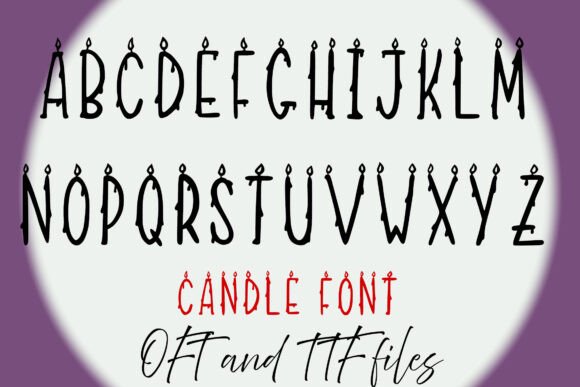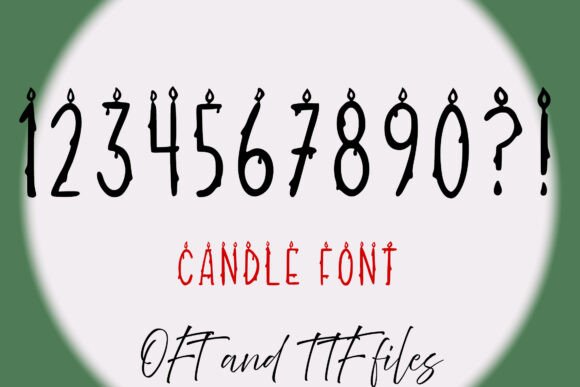
The Glow of Inspiration: How Candle Font Can Elevate Your Designs
I’ll never forget the time I was working on a Halloween-themed project for a client, and I just couldn’t find the right font to capture the spooky yet charming vibe I was going for. The design was supposed to be eerie, yet inviting—a delicate balance that’s hard to achieve with the wrong typography. That’s when I stumbled upon Candle Font, a unique and spooky decorative typeface that instantly brought my design to life. Each letter, topped with a tiny flame, seemed to dance across the page, casting a warm yet mysterious glow over the entire piece.
A First Impression: What I Love About Candle Font
Candle Font has quickly become one of my go-to typefaces for projects that require a touch of magic and mystery. Here are a few things I love about it:
- ✨ Unique Design: The tiny flame on top of each letter is not just a gimmick—it adds a level of whimsy and charm that’s hard to find in other fonts.
- âś… Versatility: Whether you’re working on a Halloween design, a gothic invitation, a horror poster, or a magical branding project, Candle Font fits right in.
- 🔥 Eerie yet Inviting: The font strikes the perfect balance between spooky and charming, making it ideal for projects that need to capture a sense of mystery or intrigue.
Honest Review: A Few Quirks to Consider
While Candle Font is incredibly versatile and charming, there are a few quirks to keep in mind:
- 🤔 Legibility at Small Sizes: Like many decorative fonts, Candle Font can become a bit tricky to read at smaller sizes. It’s best used for headlines or larger text elements.
- ⚠️ Overuse: Because of its unique design, it’s easy to overuse Candle Font in a single project. It’s best to use it sparingly to maintain its impact.
The Story Behind Candle Font: Designer Inspiration
While the origins of Candle Font might be shrouded in mystery, it’s easy to imagine a designer sitting by a flickering candle, inspired by the dance of the flames. The creator likely wanted to capture the warmth and intrigue of candlelight in a typeface that’s both spooky and charming. Whether that’s the actual story or not, it’s clear that Candle Font brings a unique perspective to the world of typography.
| Font Name | Candle Font |
| Author | squeebcreative |
| What makes Candle Font unique? | Candle Font is unique because each letter is topped with a tiny flame, giving it an eerie yet charming look that’s perfect for designs that need a touch of mystery or whimsy. |
Candle Font is more than just a typeface—it’s a design element that can instantly elevate your projects with its unique charm. Whether you’re crafting a haunted house flyer, a witchy party invite, or a magical brand identity, this font brings a warm yet mysterious glow that’s hard to replicate. So next time you’re looking for a font that adds a little magic to your designs, consider giving Candle Font a try.